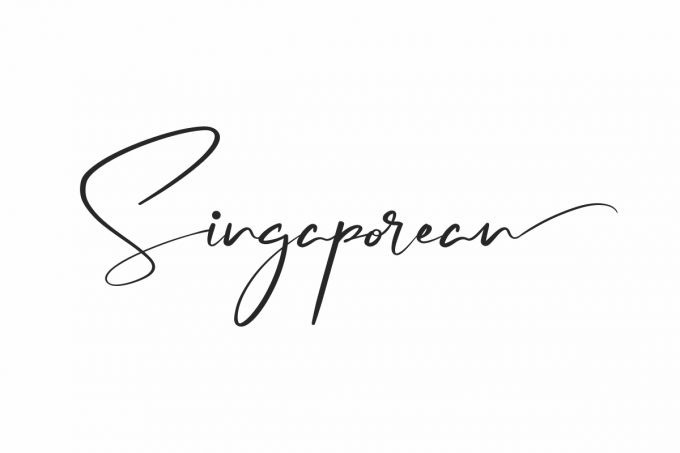
Singaporean Handwritten Font
Singaporean Font is a modern handwriting calligraphy font by NihStudio. Try the font DEMO by typing your own text below. Please note that the test font below is a demo file, so some specimens/ characters will not show up.
Singaporean font will be great for any projects (require extended license) including : branding, logo, stationery, business card, signage, flyer, brochure etc.
The theme style of the font is modern, elegant, luxury, glamour, gold, manual, stylish, sophisticated and classic brush style. The font will be match for this typeface: wedding, events, real estate, architect, law firm, florist, gardening, makeup artist, travel, hotel, musician etc